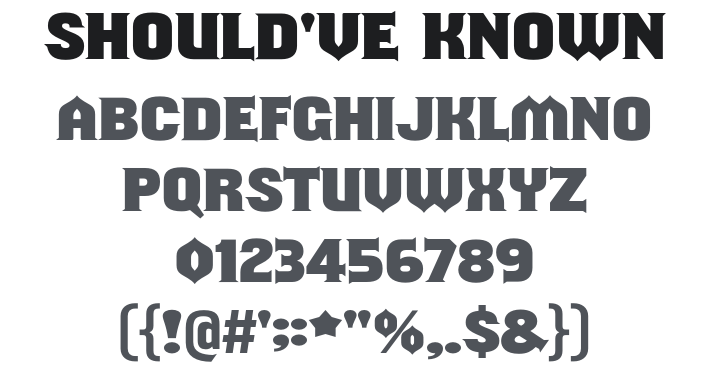
Should've Known Font Family
About Should've Known
Should've Known is a bold, ultra-heavy western slab-serif display typeface with dramatic, exaggerated proportions that feel like classic cowboy signage pushed to an extreme alternate-universe limit — thick, curved serifs and chunky letterforms with unusual pointed drops and notches that make it distinctly alien. A Shaded variant adds a 3D inline effect for extra impact. Perfect for western-themed designs, saloon branding, country music posters, and any headline needing outlaw-sized attitude.